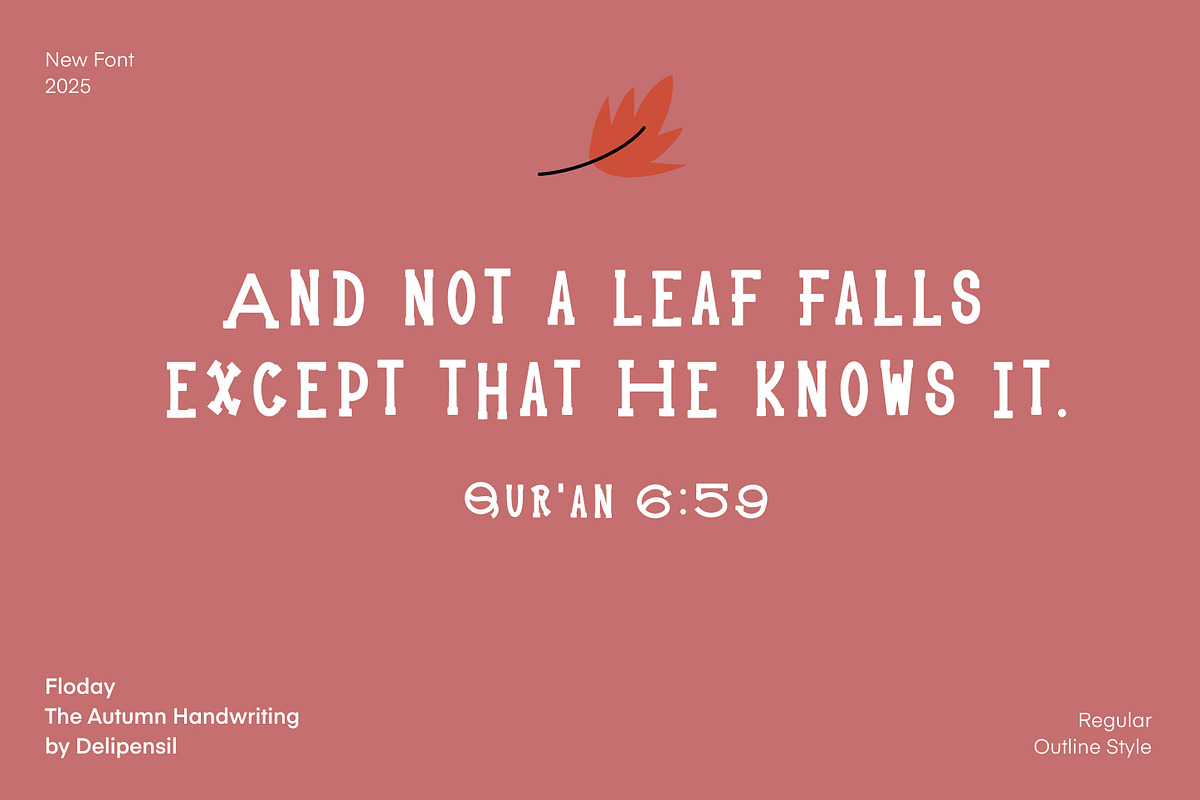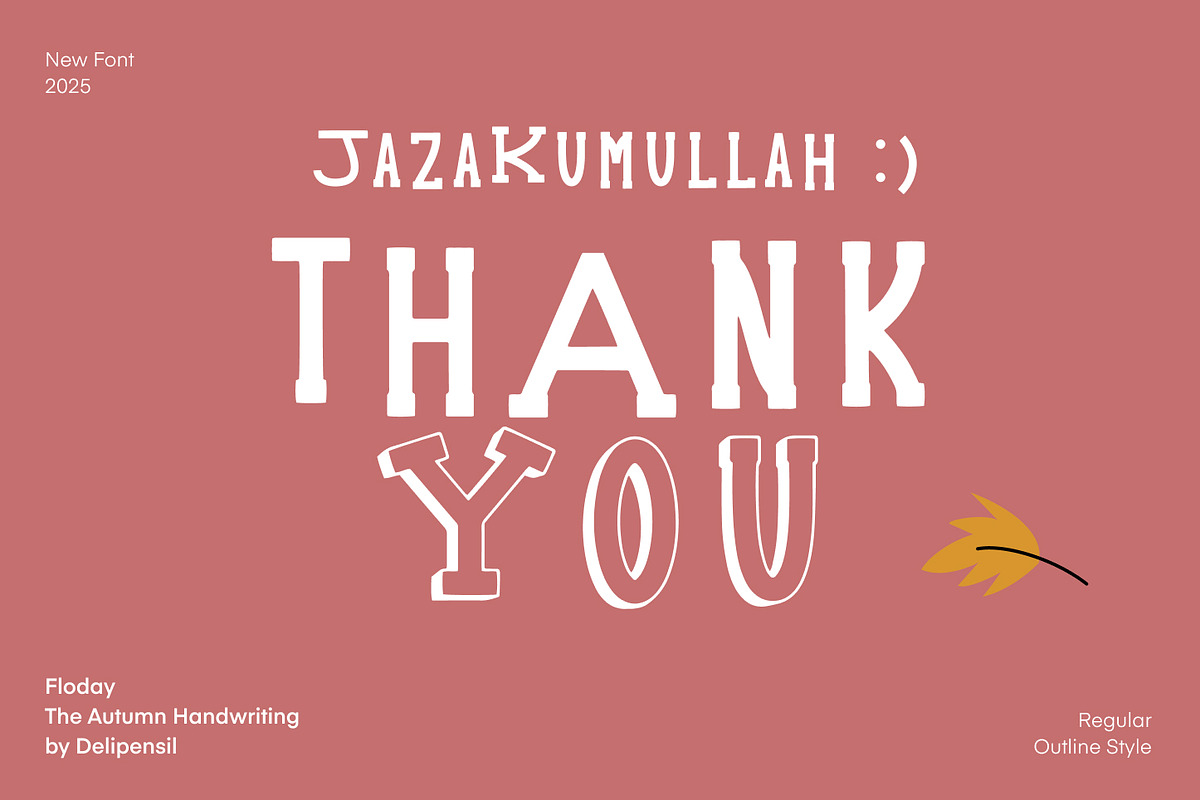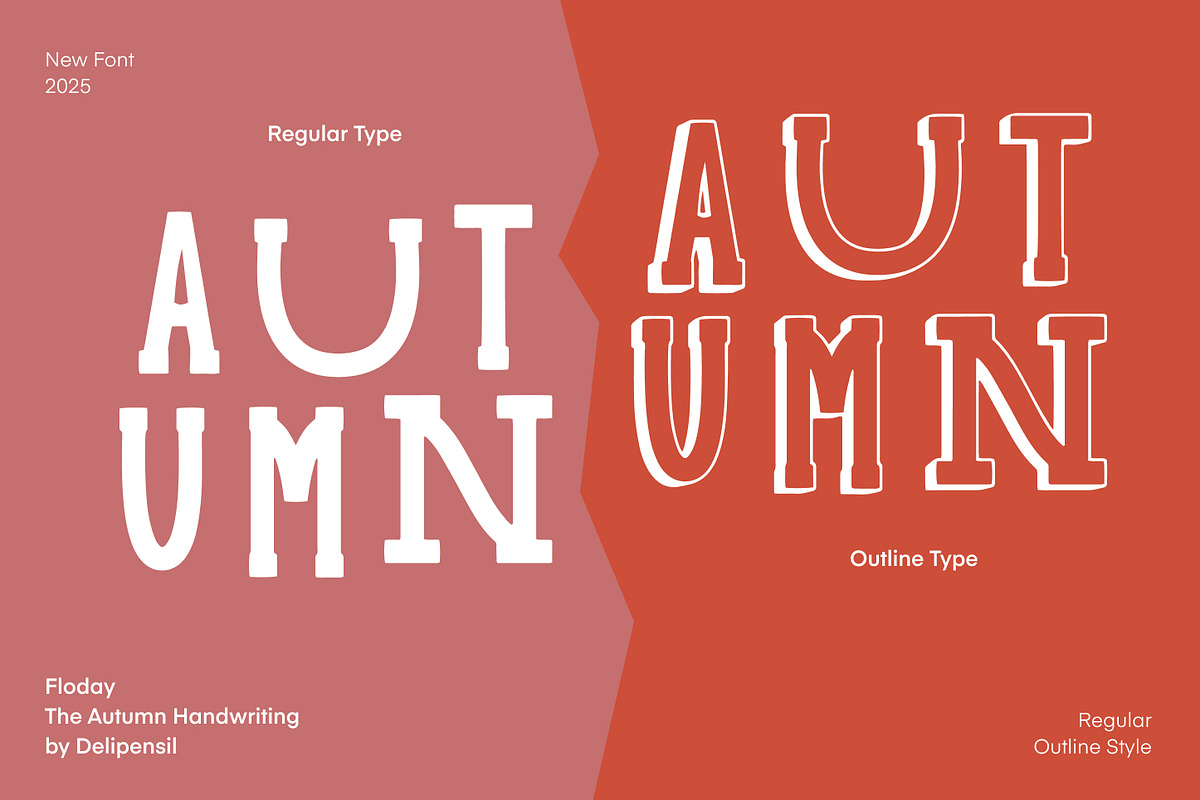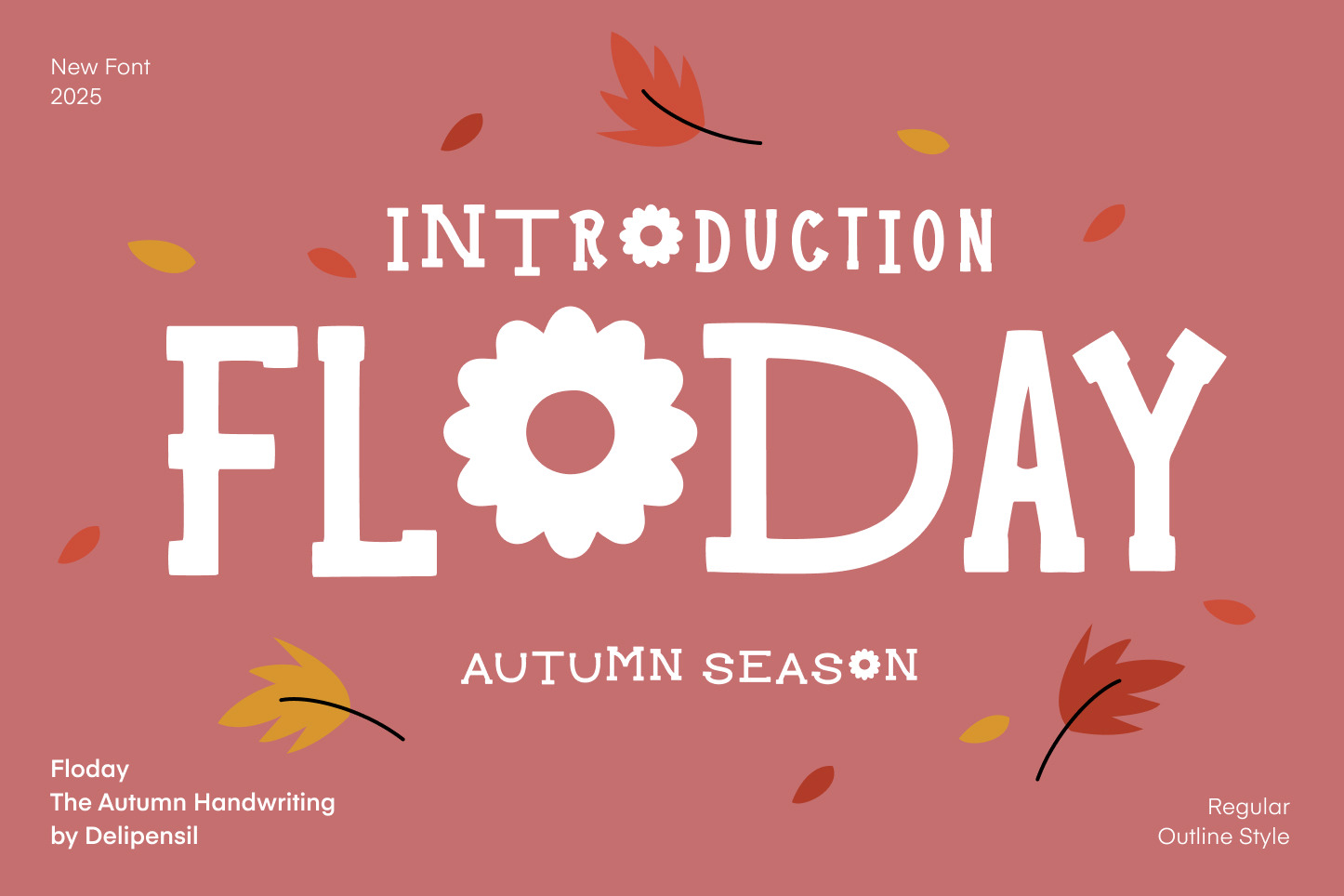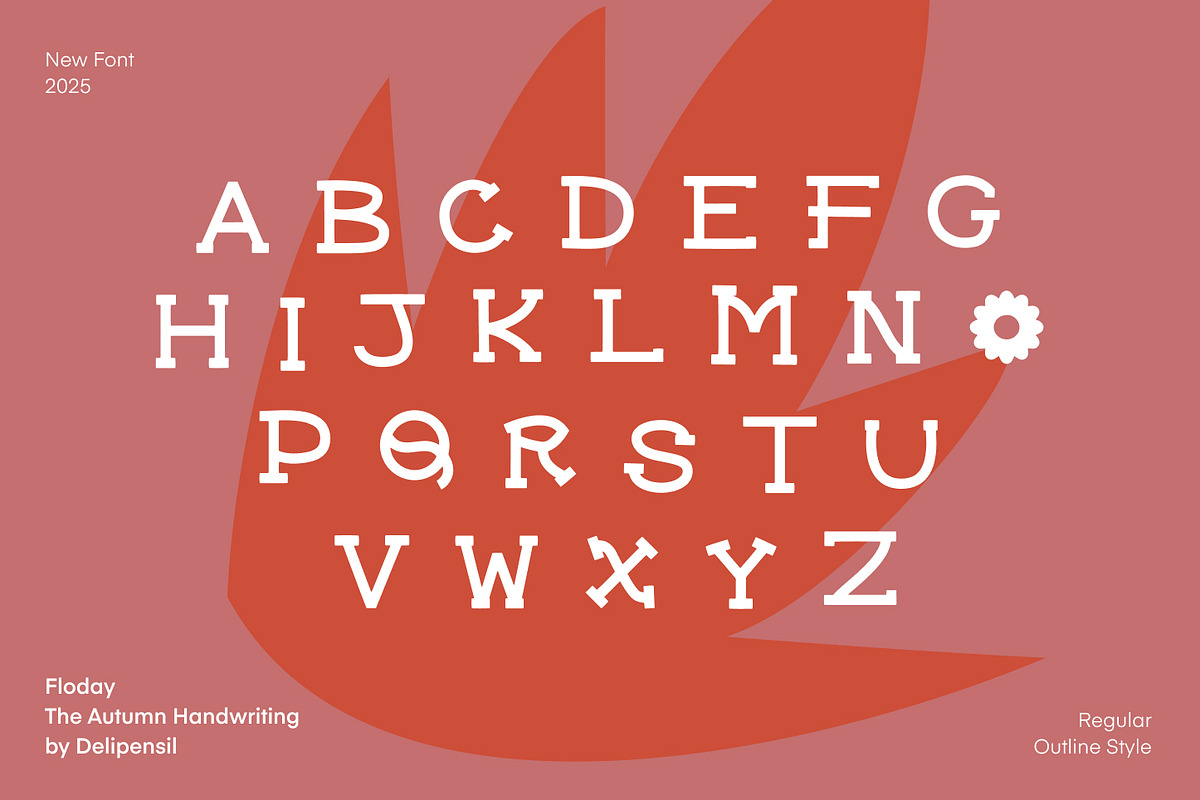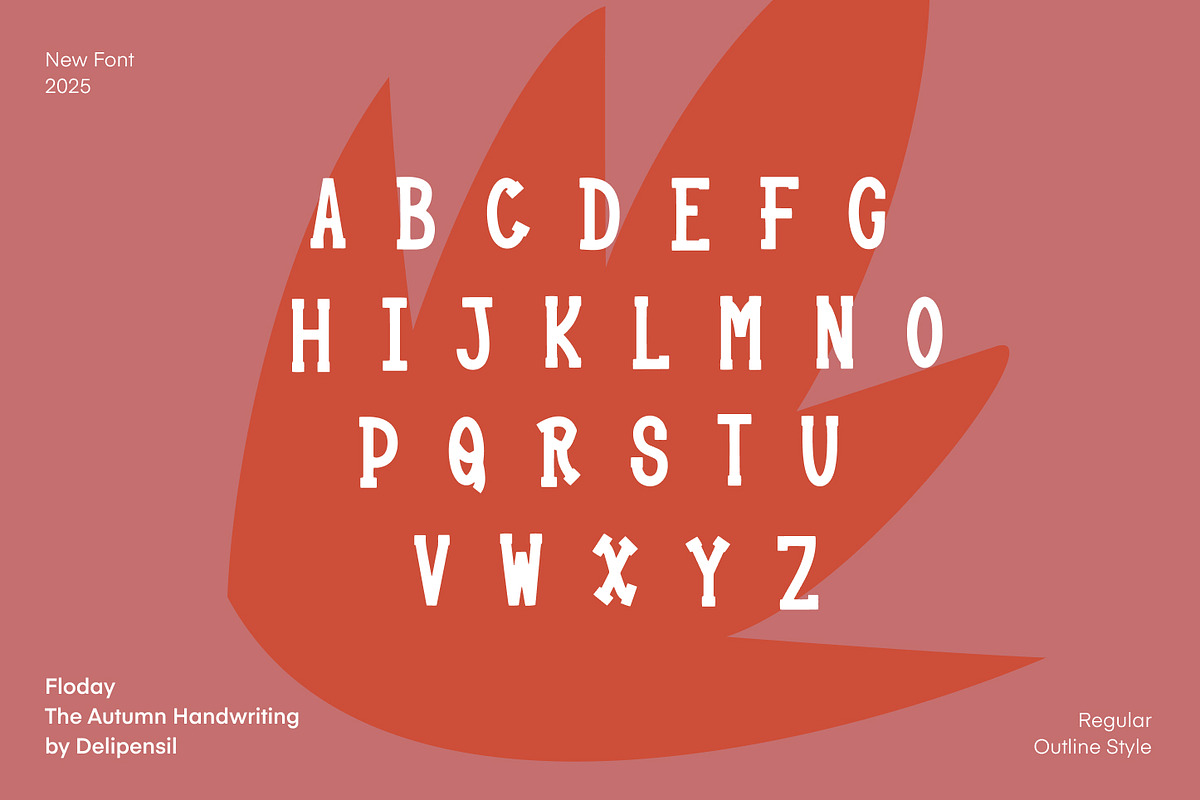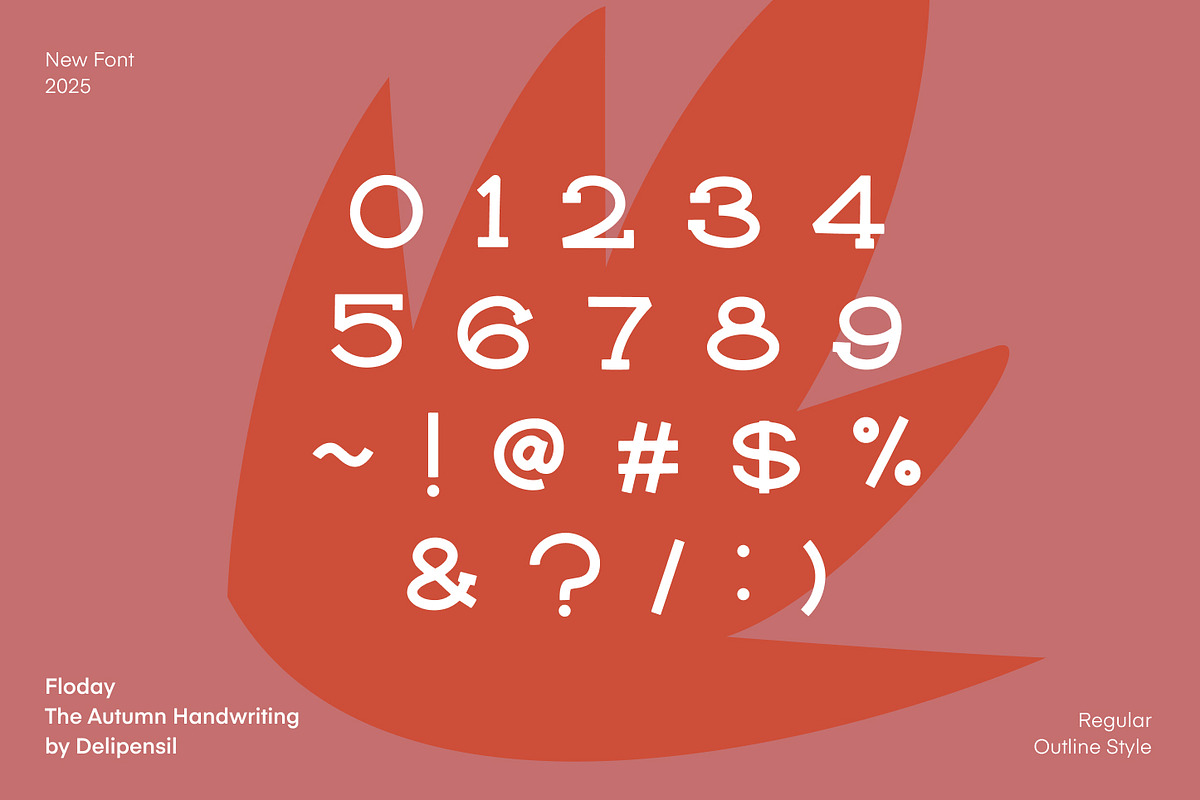
Floday - Autumn Season Font
Bismillah, Introduction Floday – Autumn Season is a warm and charming display font inspired by the cozy beauty of falling leaves, soft breezes, and the gentle calm of autumn days. Its playful curves and smooth handwritten touches create a friendly and inviting feel, perfect for designs that need both personality and seasonal elegance.
Designed for creators who love aesthetic seasonal themes, Floday brings a comforting autumn vibe to every project—whether it’s for branding, packaging, social media quotes, home décor prints, or festive fall invitations.
- Floday Uppercase A–Z
- Floday Lowercase a–z
- Floday Numbers & punctuation
- Smooth, clean strokes
- Autumn-inspired handwritten style
- Easy to read and beautifully balanced